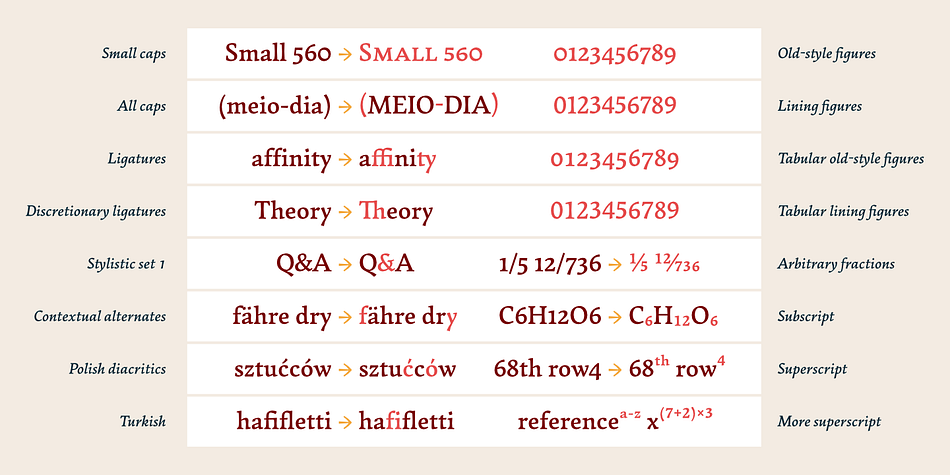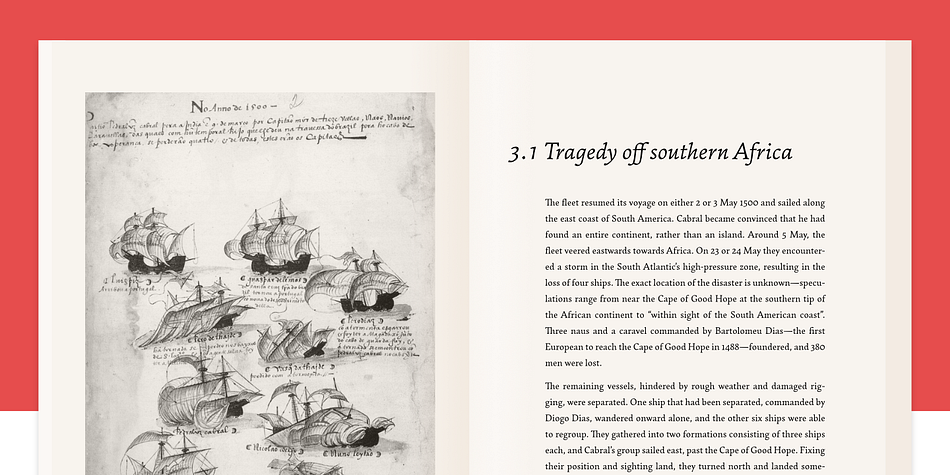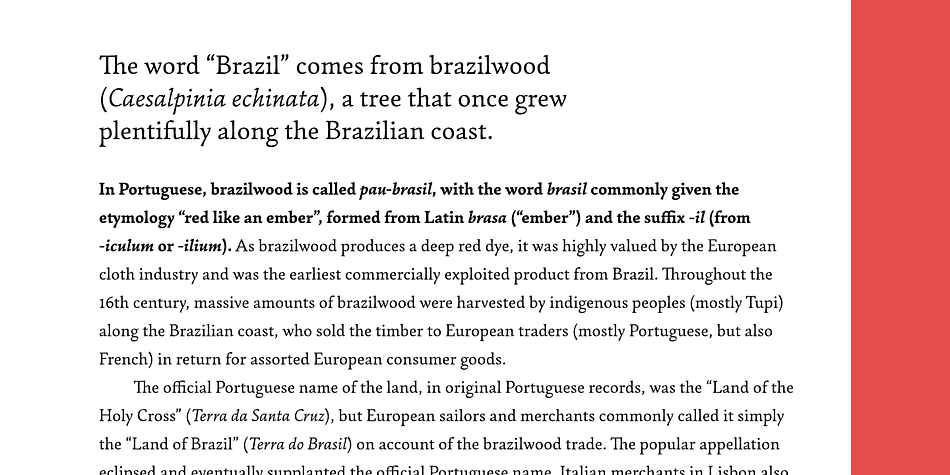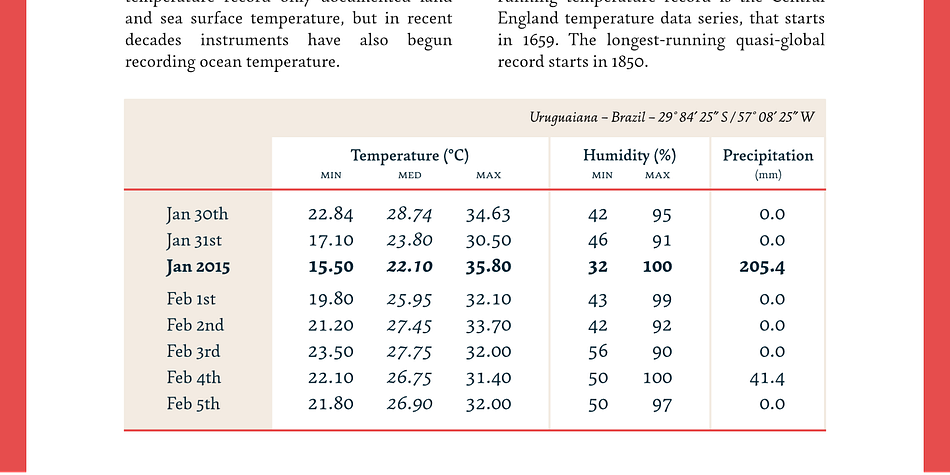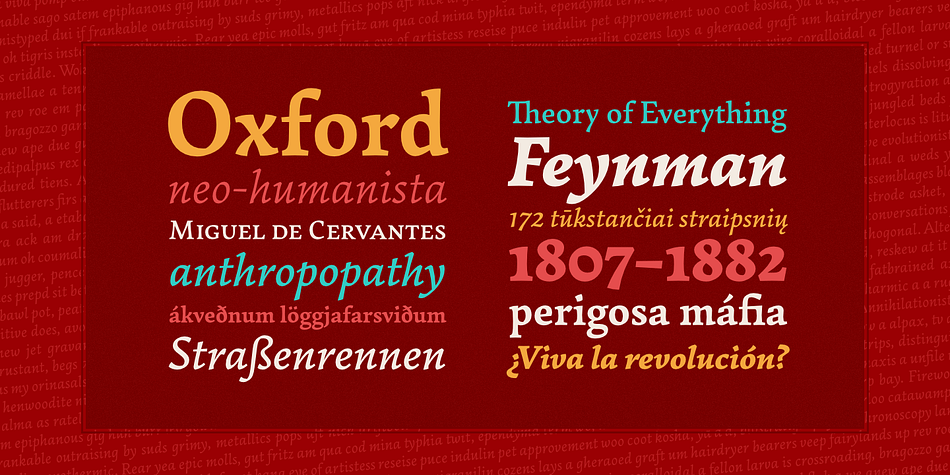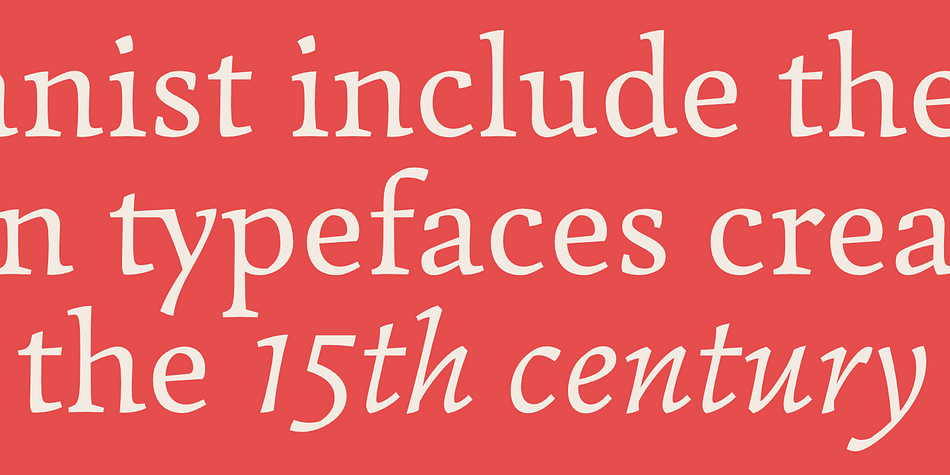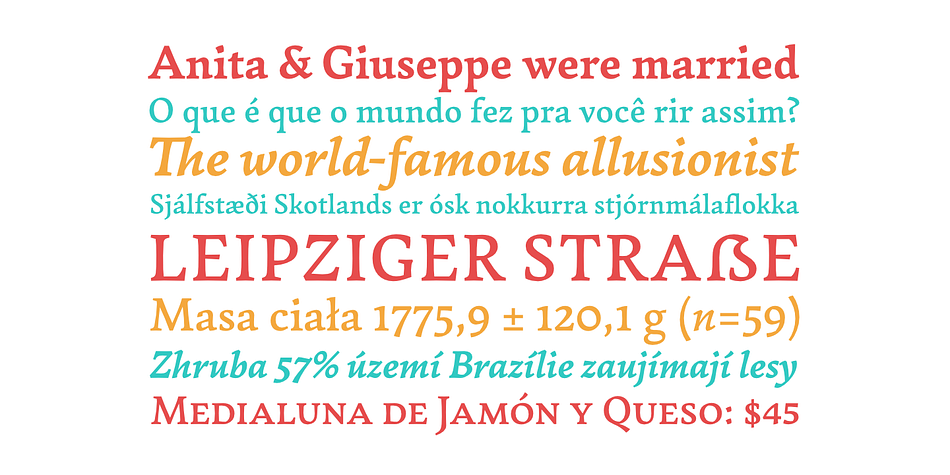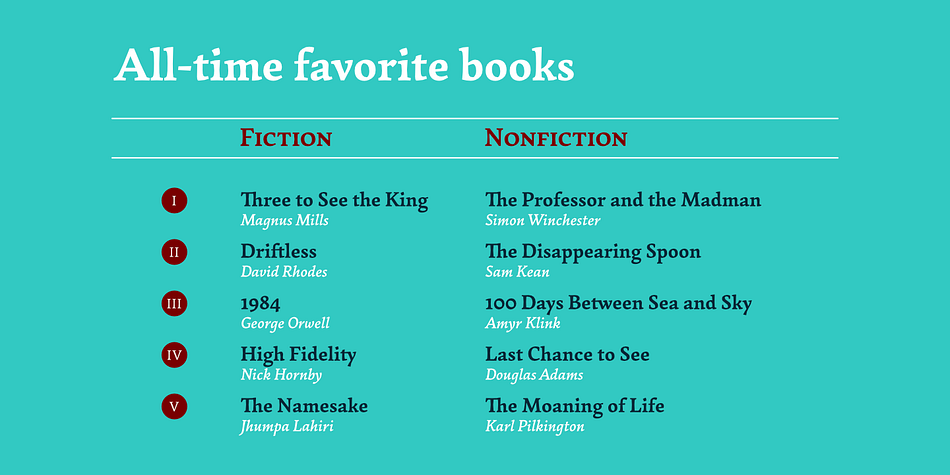
Designed by Henrique Beier, Garibaldi is a serif and slab serif font family. This typeface has eight styles and was published by Harbor Type.
Garibaldi is a text typeface based on humanist calligraphy.
It has an organic look and feel, while preserves the traditional construction of roman typography. It all started with a desire to learn more about the origin of the strokes on humanist typefaces. To accomplish that, Garibaldi features a 20° axis, medium contrast based on translation and expansion, asymmetric serifs, and terminals related to the broad nib stroke.
Garibaldi Regular was selected for Tipos Latinos 2014. Since then, the family was expanded with more weights and matching italics, making it a solid choice for setting books, magazines and documents. Among many OpenType features, each font contains small caps, ligatures and contextual alternates, totalling more than 750 glyphs and supporting at least 80 languages.